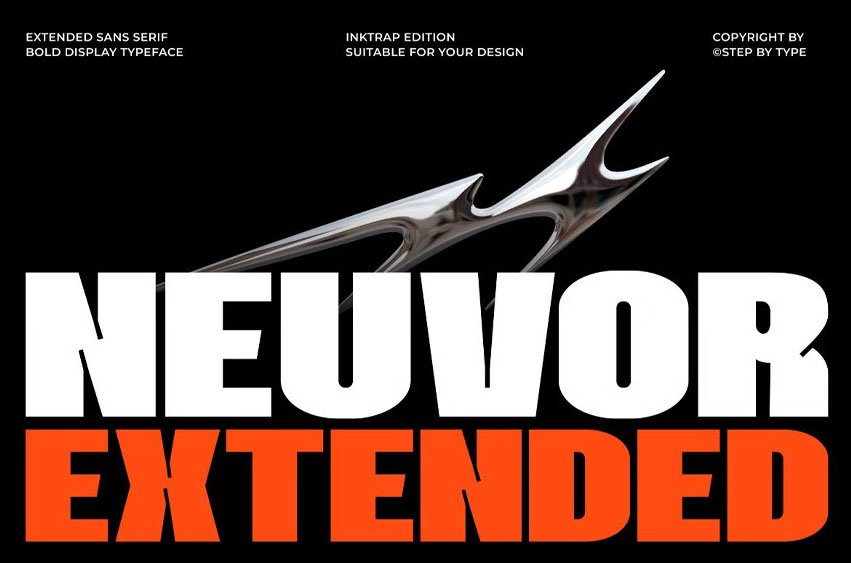
Neuvor Extended Font is a bold extended display font with strong inktrap details, wide letterforms, and a modern industrial sans serif style. Designed for high-impact typography, this font is perfect for bold headlines, logos, posters, editorial titles, music covers, event promotions, technology branding, gaming graphics, social media visuals, and modern creative layouts.
With its wide structure, heavy shapes, and powerful visual presence, Neuvor Extended brings a futuristic, experimental, and memorable look to any design that needs bold display typography with a strong modern character.